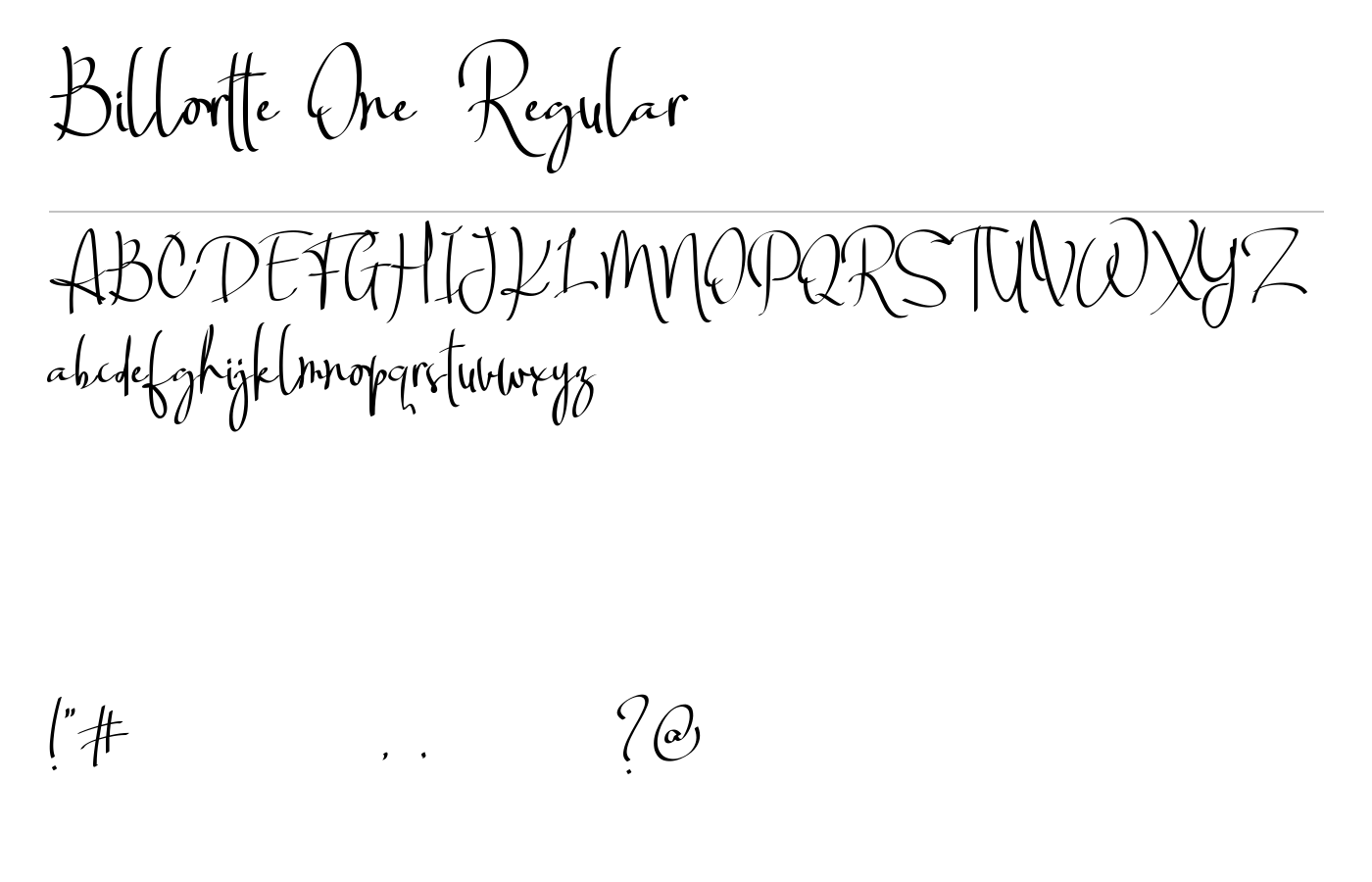
Billortte is a delicate, handwritten script font characterized by its tall, narrow letterforms and elegant, flowing strokes that mimic fine calligraphy. Its light weight and slightly whimsical style give it a refined yet approachable feel, making it ideal for invitations, branding, and creative projects that seek a personal and artistic touch. This font works best in headlines or decorative text where its unique charm can truly stand out.
| Font family | Billortte Font |
| Designer | Aldedesign 2018 |